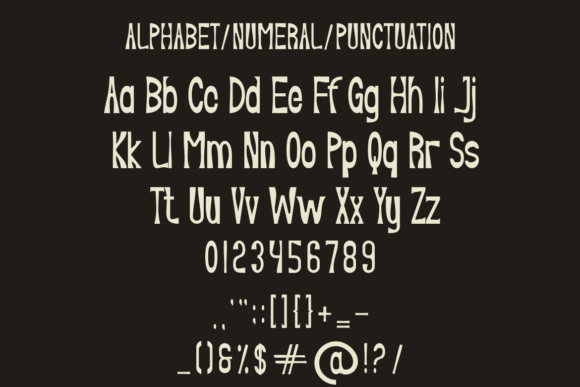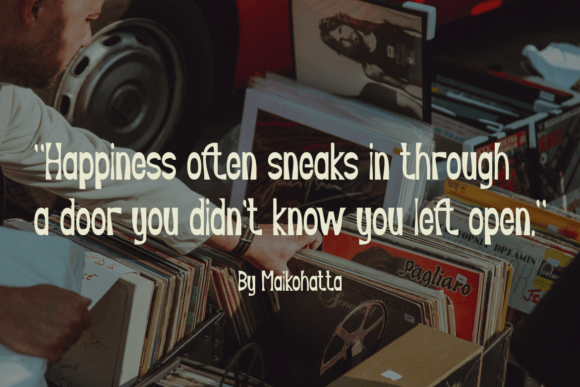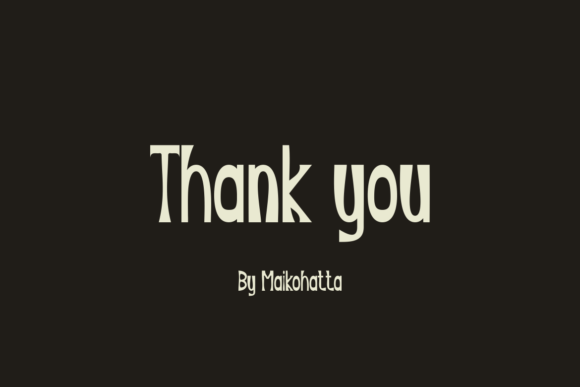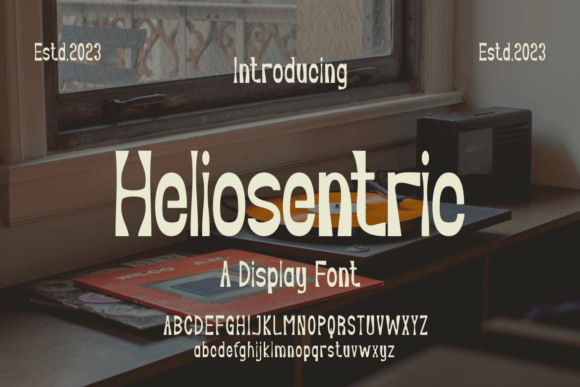
Introducing Heliosentric Font: The Ultimate Display Font for Bold Designs
In the world of typography, a good font can make all the difference in creating a lasting impression. For designers and crafters looking for a bold and authentic display font, Heliosentric Font is an excellent choice. This stunning font is perfect for a wide range of branding projects, including logos, t-shirt printing, esports, and more.
What Makes Heliosentric Font Stand Out?
Heliosentric Font is a bold and authentic display font that is designed to make a statement. Its unique and eye-catching design makes it perfect for projects that require a strong visual impact. The font’s bold and confident style is sure to grab attention and leave a lasting impression on your audience.
One of the key features that sets Heliosentric Font apart is its versatility. This font is suitable for a wide range of contexts, from branding and advertising to packaging and merchandise. Whether you’re looking to create a bold logo, a striking t-shirt design, or a professional business card, Heliosentric Font is an excellent choice.
Heliosentric Font is a designer’s dream come true. Its clean and crisp lines make it easy to read and understand, while its bold style adds a touch of sophistication and elegance. The font is perfect for designers who want to create stunning visual designs that stand out from the crowd.
Use Cases for Heliosentric Font
So, what can you use Heliosentric Font for? The possibilities are endless! Here are a few ideas to get you started:
• Logo Design: Create a bold and memorable logo for your business or brand with Heliosentric Font.
• T-Shirt Printing: Design eye-catching t-shirts with Heliosentric Font that’s sure to turn heads.
• Esports: Use Heliosentric Font to create professional-looking esports designs, including team logos, jerseys, and more.
• Packaging: Add a touch of elegance and sophistication to your packaging designs with Heliosentric Font.
• Merchandise: Create stunning merchandise, including mugs, phone cases, and more, with Heliosentric Font.
Why Choose Heliosentric Font?
So, why choose Heliosentric Font over other display fonts? Here are just a few reasons:
• Unique Design: Heliosentric Font has a unique and eye-catching design that’s sure to stand out.
• Versatility: This font is suitable for a wide range of contexts and projects.
• High-Quality: This font is designed to deliver high-quality results, even at large sizes.
In conclusion, Heliosentric Font is an excellent choice for designers and crafters looking for a bold and authentic display font. Its unique design, versatility, and ease of use make it perfect for a wide range of branding projects, from logos and t-shirt printing to esports and packaging. With Heliosentric Font, you can create stunning visual designs that are sure to leave a lasting impression on your audience.